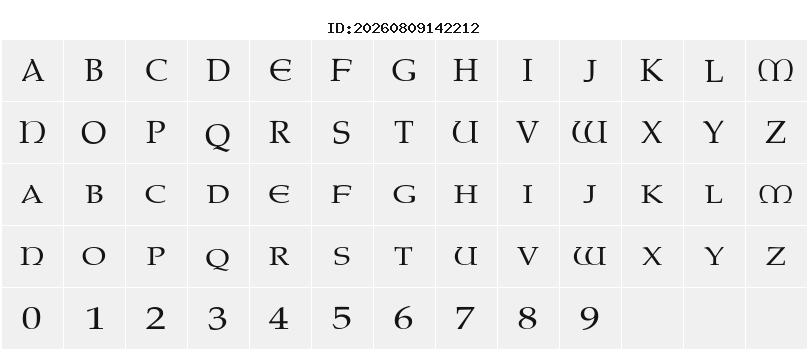
Paternoster AH Preview
• Font Name: Paternoster AH
• Designer: Andreas Höfeld
• Description: Based on Hermann Zapf's Palatino this is a "Holier-Than-Thou" SC version.
About Paternoster AH.ttf